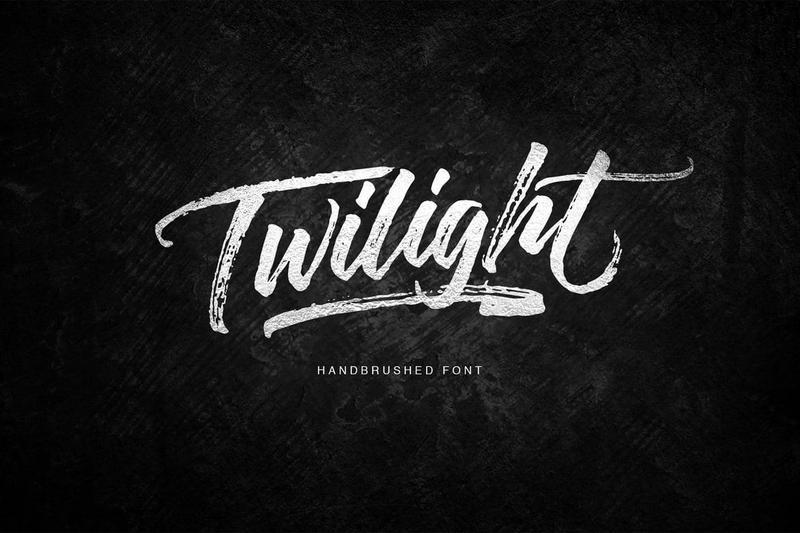
Twilight Script 4TUXMUB
**Twilight Script** is a dry handbrushed font, designed to combine perfectly and allow you to create stunning hand-lettering quickly and easily. Ideal for logos, handwritten quotes, product packaging, headers, posters, merchandise, social media & greeting cards.
* Uppercase and Lowercase
* Numeral & Punctuation